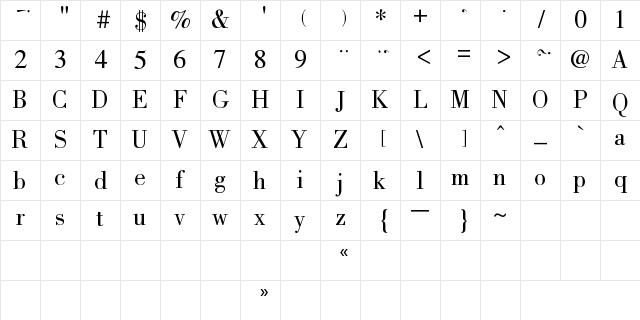
Complete Mongolian Baiti Regular glyph index. Displaying only characters natively supported by Mongolian Baiti Regular font.
Mongolian Baiti is a composed and adaptable typeface that performs quietly and consistently across a wide range of design contexts.
Who designed the Mongolian Baiti Regular font?